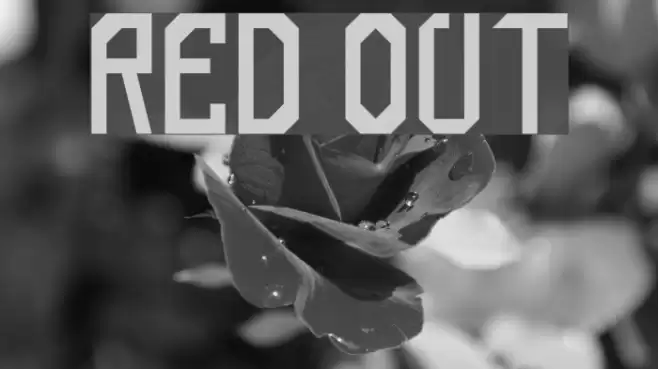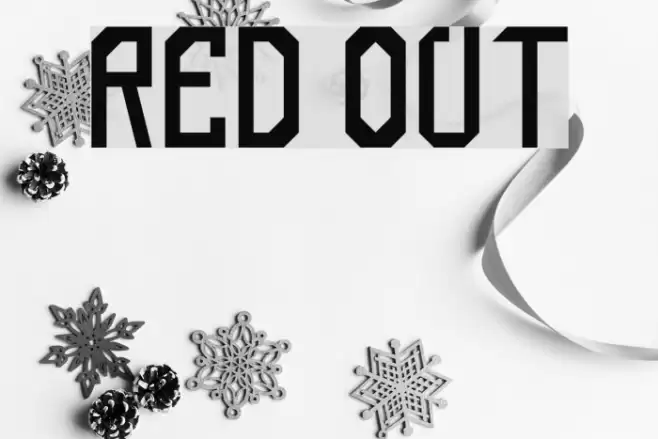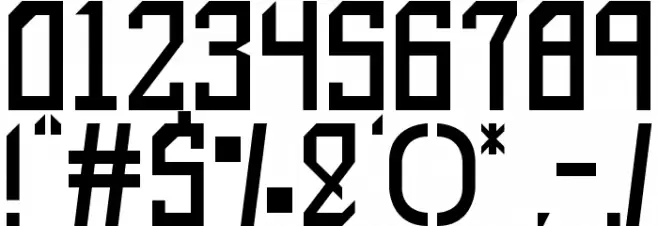
red out Font
red out Description
This font features a bold, geometric design with sharp angles and a modern aesthetic. The characters are constructed with thick, uniform strokes, giving them a strong and impactful presence. The uppercase letters are particularly striking, with a blocky, industrial feel that suggests strength and stability. The numbers and special characters maintain this cohesive style, ensuring consistency across all text elements. The font's unique design makes it suitable for projects that require a bold statement or a futuristic look.
A bold, geometric font with a modern, industrial style from Uncategorized fonts.
- Proposed Projects: Ideal for branding, posters, headlines, and any design requiring a strong, modern aesthetic.